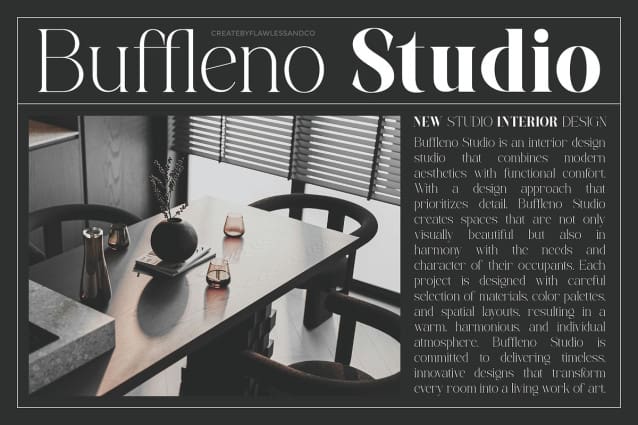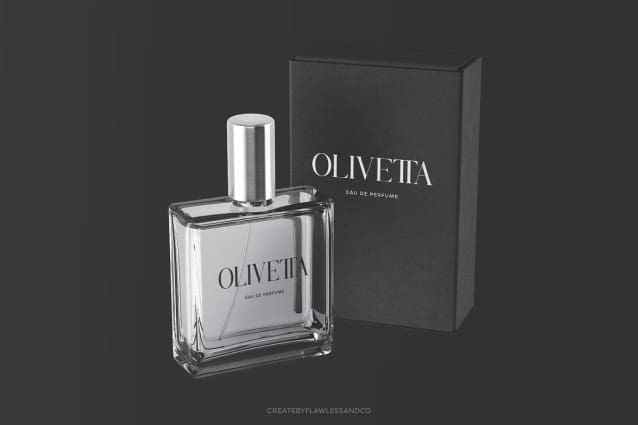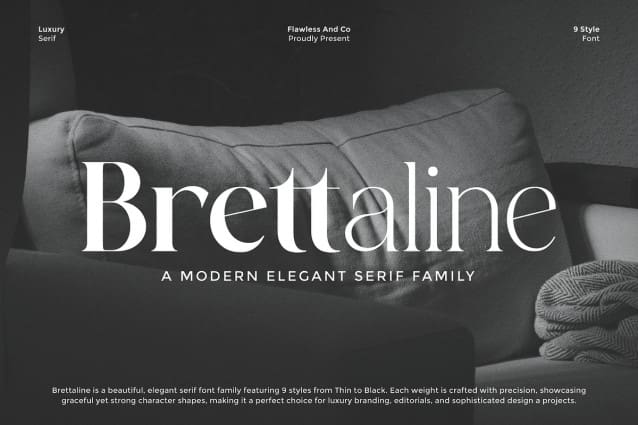
Brettaline Font
Brettaline Font is a modern elegant serif family that blends timeless beauty with contemporary refinement. Featuring 9 styles from Thin to Black, each weight is thoughtfully designed to convey sophistication and balance. With its graceful curves, sharp serifs, and refined proportions, Brettaline captures the essence of modern luxury and editorial charm. Perfectly suited for branding, magazines, packaging, and creative projects that demand elegance and class, Brettaline adds a touch of modern sophistication to any visual composition.